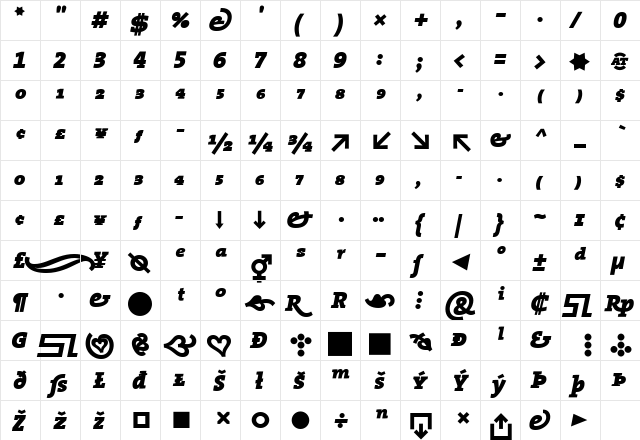
TheSerif Black Italic Font Preview
TheSerif Black Italic
TheSerif Black Italic Font Details
| Style | Black Italic |
| Foundry | Copr. Luc as de Groot |
Design Context for TheSerif Typeface
TheSerif brings classic typographic sensibility to the table — its serifs and measured letterforms reflect centuries of print heritage. The slanted form adds forward momentum and visual energy.